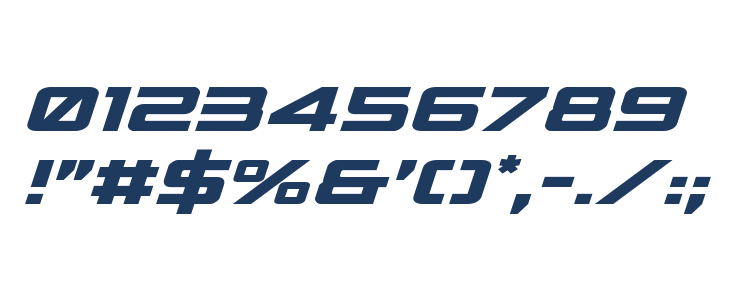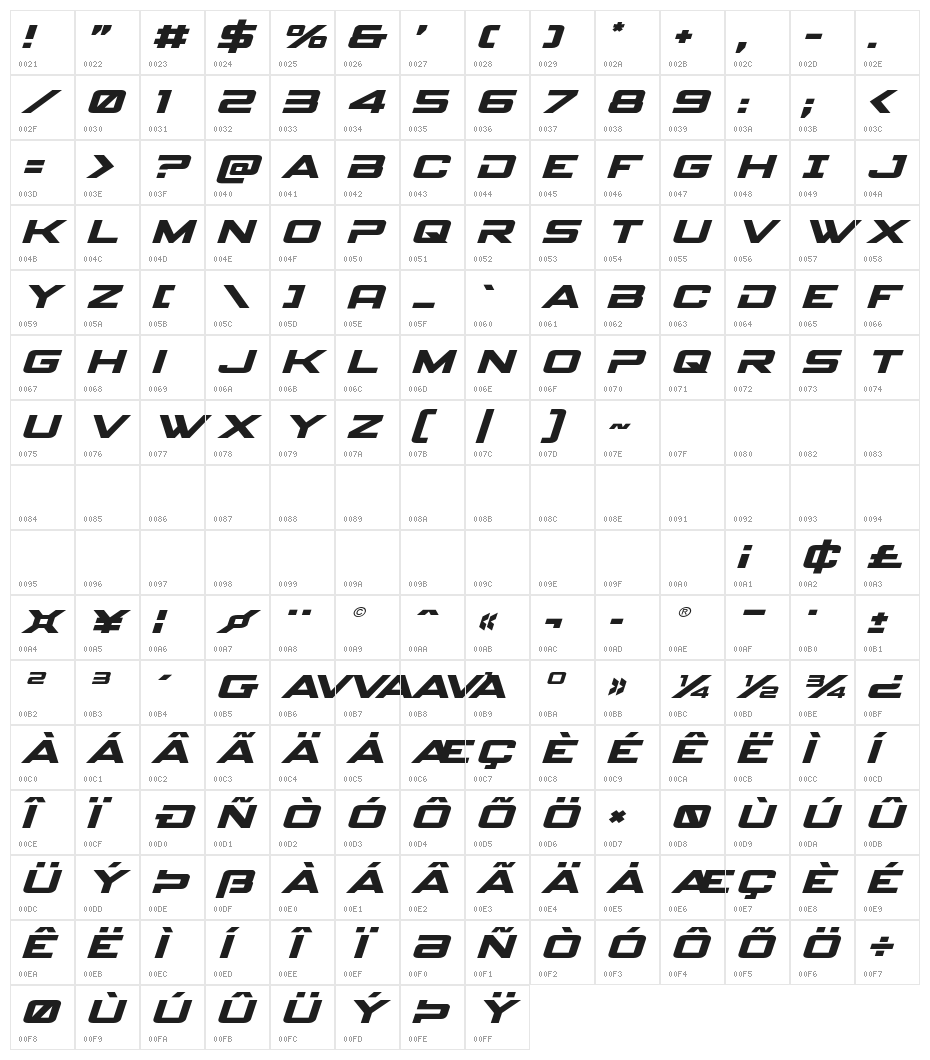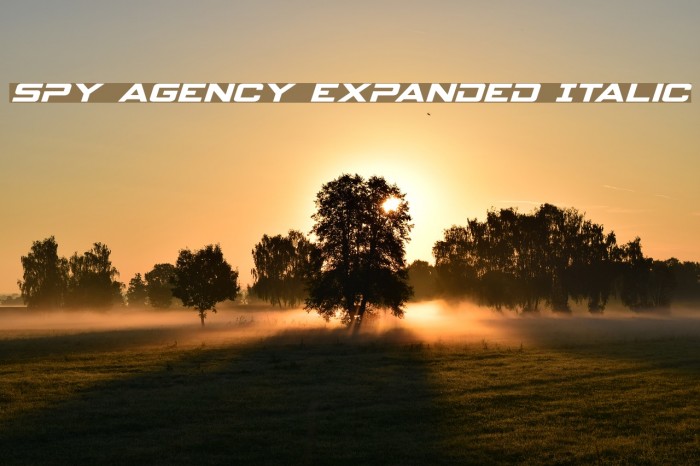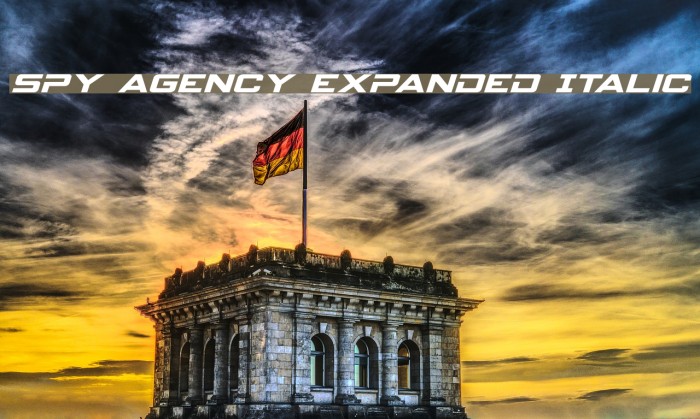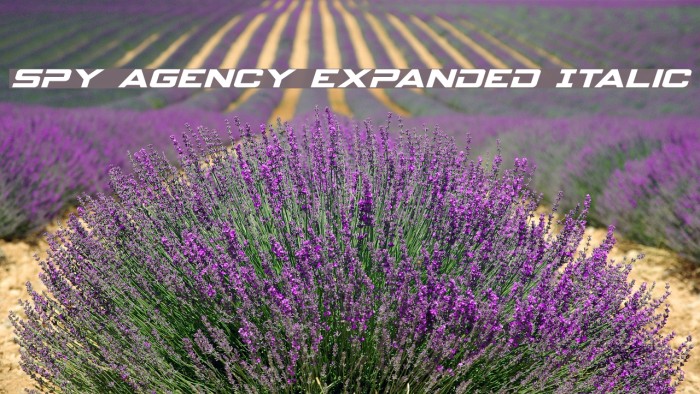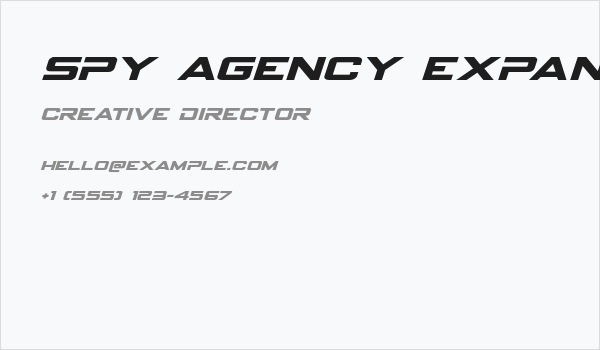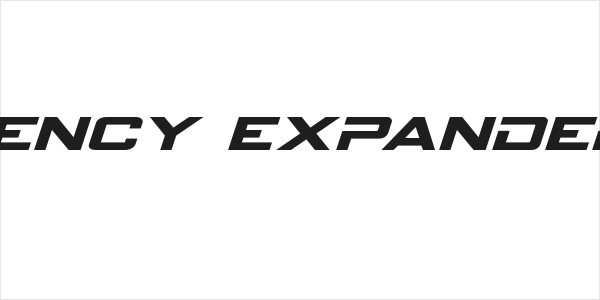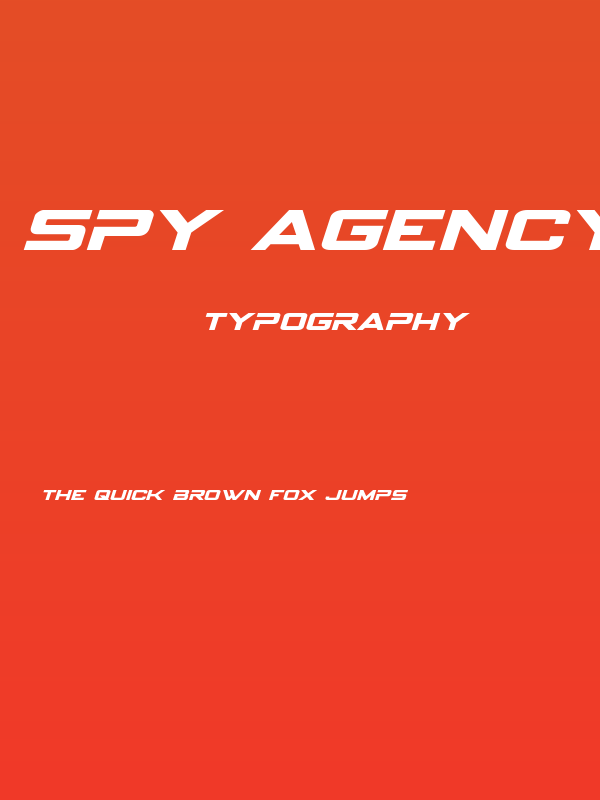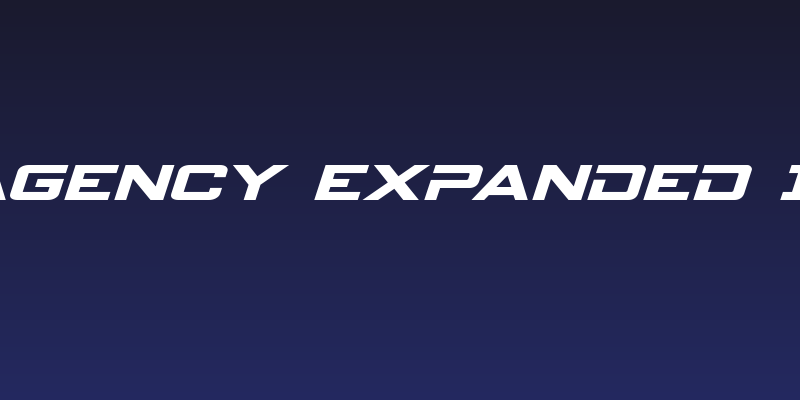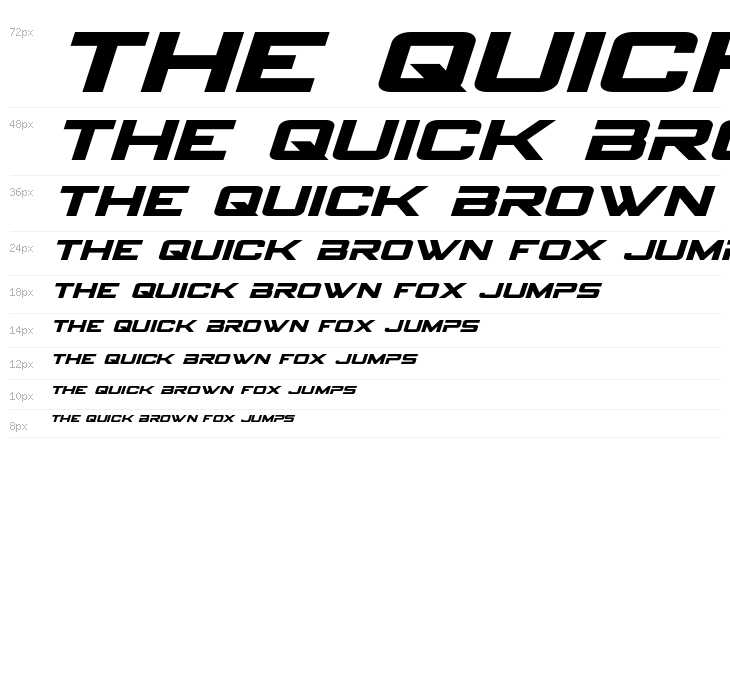
Spy Agency Expanded Italic Font
Spy Agency Expanded Italic Description
This font features a bold, italicized style with an expanded width, giving it a dynamic and futuristic appearance. The characters are sharply angled, creating a sense of motion and speed. The uppercase letters are particularly striking, with a strong geometric influence that enhances their boldness. The numbers and special characters maintain this aesthetic, ensuring consistency across all glyphs. The italic slant adds a sleek, modern touch, making it ideal for projects that require a sense of urgency or forward-thinking design.
Use CaseLogos, Headlines, Branding
Proposed ProjectsIdeal for branding, technology-related designs, sports team logos, or any project needing a modern, energetic look.